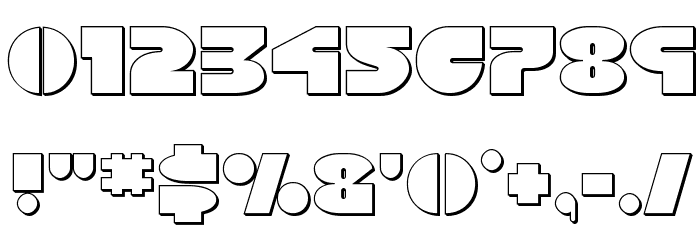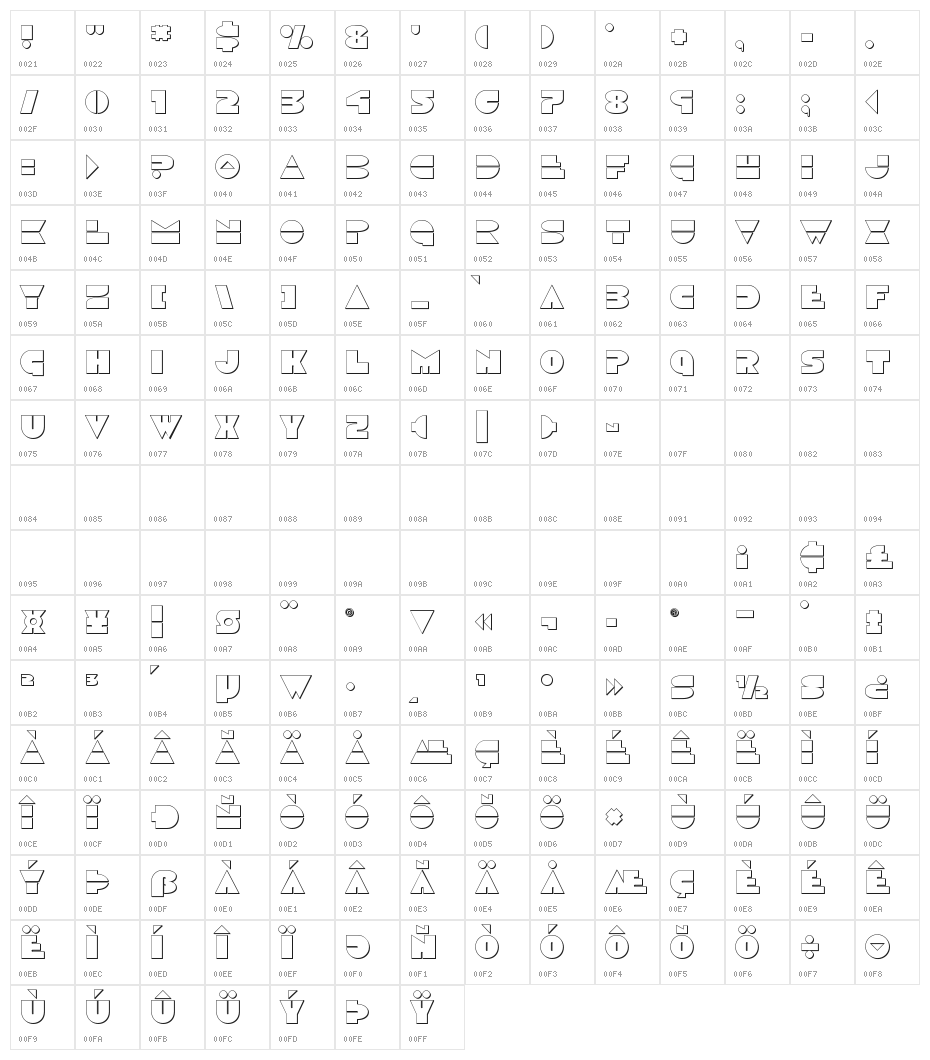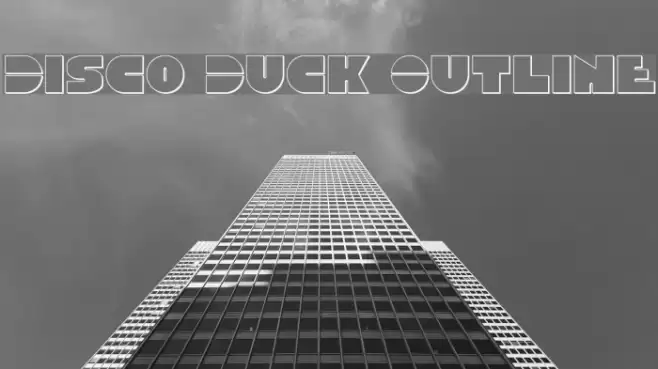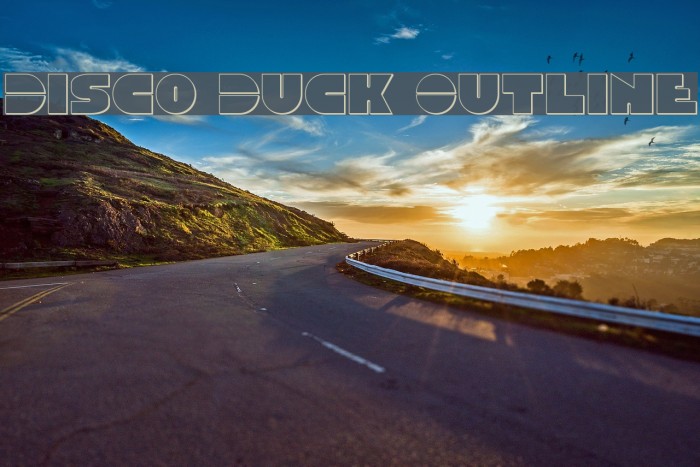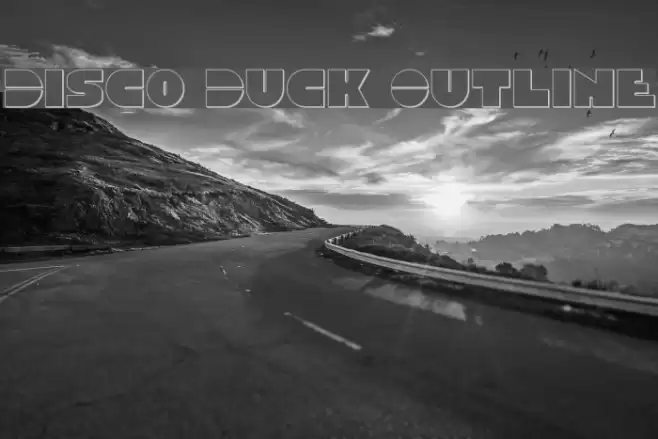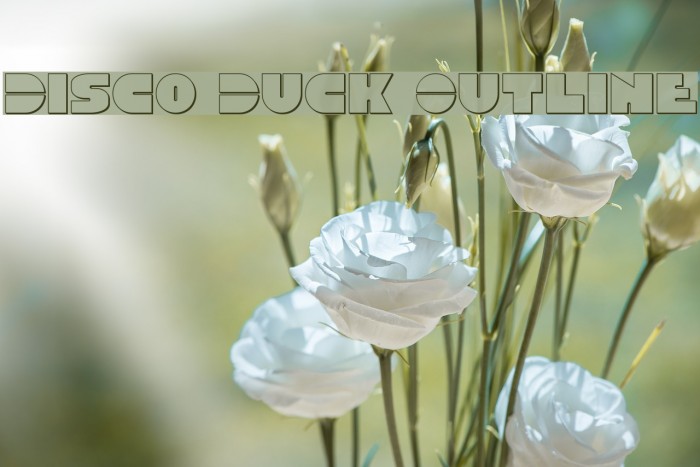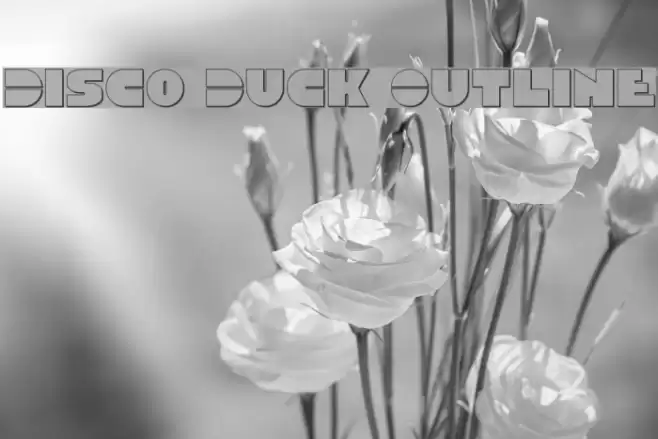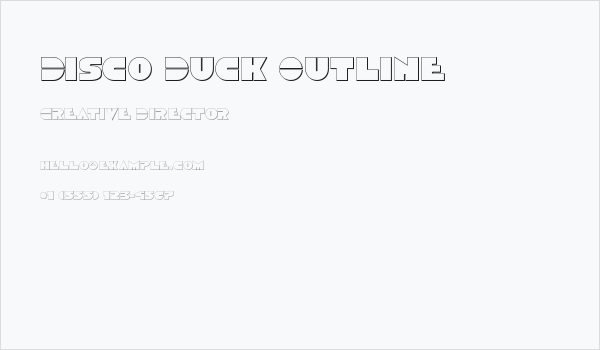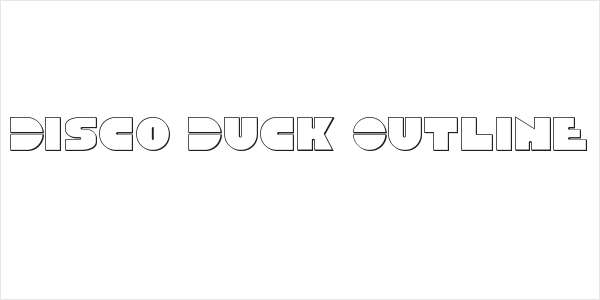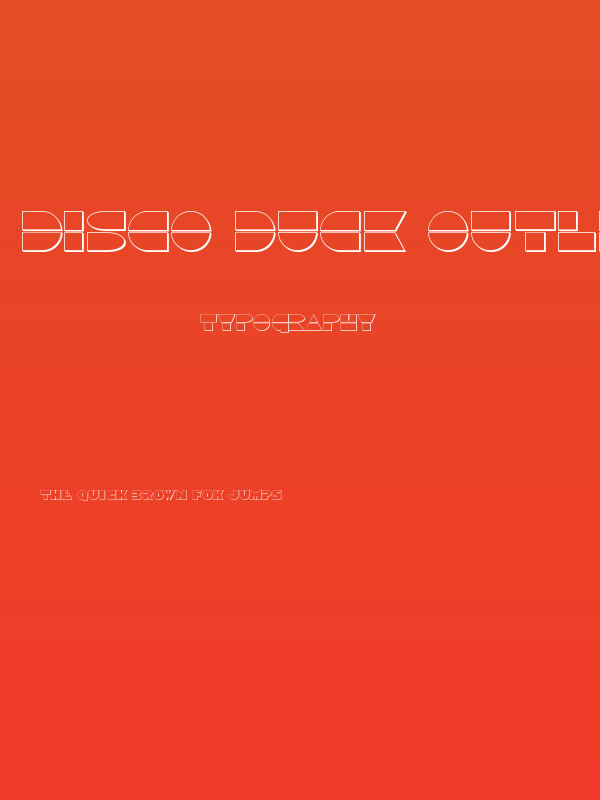
Disco Duck Outline Font
Disco Duck Outline Description
This font features a bold, geometric outline style with a playful and retro aesthetic. The characters are constructed using a combination of straight lines and curves, creating a distinct and eye-catching appearance. The uppercase letters are particularly striking, with a blocky, angular design that emphasizes their outline form. The lowercase letters maintain the same geometric theme, offering a cohesive look across the entire typeface. The numbers and special characters are designed to match the bold and playful style, making them suitable for a variety of creative applications. The overall design is reminiscent of retro and disco themes, making it ideal for projects that require a fun and nostalgic touch.
| Overall Style | Retro, Decorative |
| Proposed Projects | Ideal for retro-themed posters, party invitations, album covers, and branding projects that require a fun and nostalgic touch. |